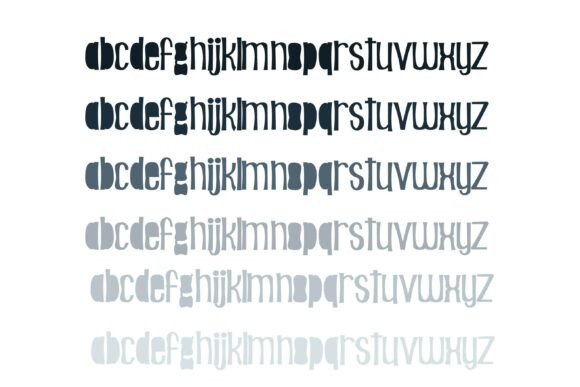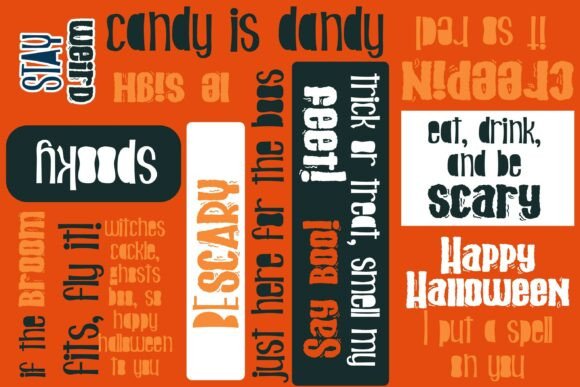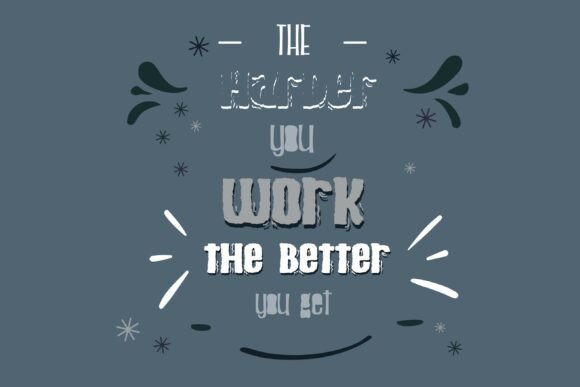
Introduction to Nincaberry Scary Duo Font
Do you remember the thrill of brainstorming a creative project, only to be stuck on the perfect font to bring your idea to life? It’s that moment when you scroll through endless options, searching for the perfect combination of style and personality. For designers, finding the right font can be a game-changer, elevating a project from bland to grand. If you’re looking for a font that screams Halloween fun, look no further than the Nincaberry Scary Duo Font.
This whimsical and creepy font duo, consisting of Nincaberry Scary and Nincaberry Night, offers a unique blend of scary and silly that’s perfect for any Halloween-themed design. Whether you’re creating a haunted vibe or keeping it playful, this duo is sure to add a touch of personality to your designs. With its high-quality, free download, and transparent background, the Nincaberry Scary Duo Font is a valuable design resource for any creative project.
Key Features of Nincaberry Scary Duo Font
- Unique and spooky design ideal for creative projects such as horror-themed posters, invitations, and websites.
- High-quality font with transparent background, making it perfect for overlaying on images or videos.
- Comes in two versions, a bold and a regular, allowing for more creative flexibility in design projects.
- Size: Supports a wide range of font sizes, from small to large, allowing for versatility in design projects.
- Can be used as a design resource for various creative projects, including horror-themed movies, games, and websites.
Honest Review: Nincaberry Scary Duo Font
As a designer, I’m always on the lookout for unique and high-quality design resources to elevate my creative projects. Recently, I had the chance to try out the Nincaberry Scary Duo Font, and I’m excited to share my honest review.
What works well: ✨ The Nincaberry Scary Duo Font has a spooky and playful vibe that’s perfect for Halloween-themed designs or any project that needs a touch of whimsy. The font is highly customizable, with a range of weights and styles that can be easily mixed and matched to create a cohesive look. Plus, it’s a free download, which is always a bonus!
The font also comes with a transparent background, making it easy to use as a overlay or mask in your designs. This feature is especially useful for creatives who want to add depth and interest to their work without having to spend hours on complex graphics.
What’s not so great: ⚠️ While the Nincaberry Scary Duo Font is a great addition to any design arsenal, it’s not without its limitations. The font may not be suitable for more formal or professional projects, as it can come across as a bit too playful or juvenile. Additionally, some users may find the font’s bold lines and shapes to be a bit too loud or overwhelming.
Overall impression: I was pleasantly surprised by the Nincaberry Scary Duo Font’s versatility and charm. While it may not be the best fit for every project, it’s definitely a great resource to have in your toolkit. With its high quality and free download, it’s a must-try for any designer looking to add a bit of personality to their work.
- Highly customizable
- Spooky and playful vibe
The Nincaberry Scary Duo Font is a unique and high-quality design resource perfect for adding a touch of eeriness to your creative project. With a transparent background, this font can be easily integrated into various digital platforms.
Tips for Getting the Most Out of the Nincaberry Scary Duo Font
Experiment with different font sizes and colors to achieve the desired level of eeriness. Combine the font with other design elements to create a unique and captivating design.
The Nincaberry Scary Duo Font is perfect for Halloween-themed projects, horror movie posters, and spooky social media graphics. It’s also great for adding a touch of creativity to your business or academic projects.